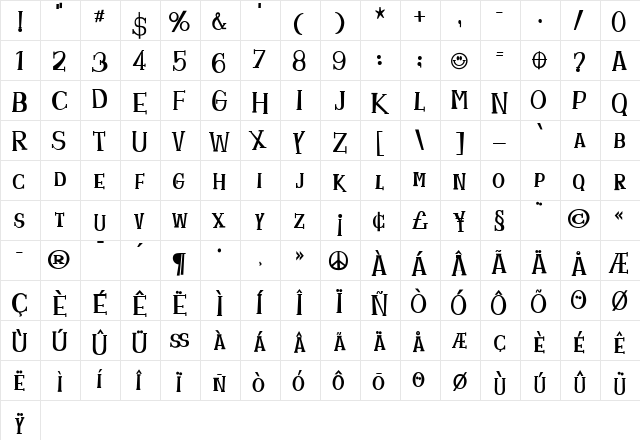
Homeboyz Medium
Design Context for Homeboyz Typeface
Homeboyz is a composed and adaptable typeface that performs quietly and consistently across a wide range of design contexts.